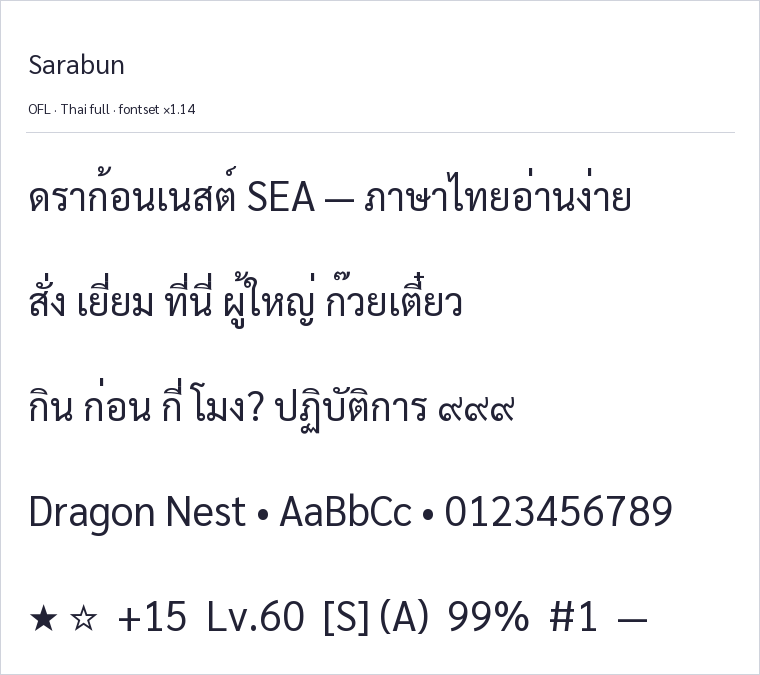
Sarabun ★
Clean, highly readable; Thai gov't official document font
Modern geometric sans; popular in Thai games/UI
Technical, clean corporate sans
Google's neutral, universal Thai UI font
Rounded, warm geometric sans — friendly game vibe
Clean modern humanist; large x-height, very readable
Squarish, angular — sci-fi/HUD/game look
Humanist, friendly, clean; already ~Tahoma size
Geometric, slightly narrow — modern & space-efficient
The original community mod — genuine Microsoft Tahoma, the game's bundled UI font. Native ★; readable but cramped Thai.